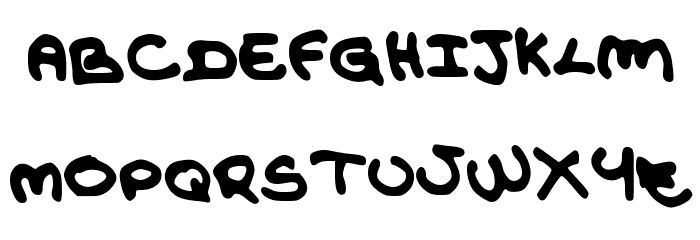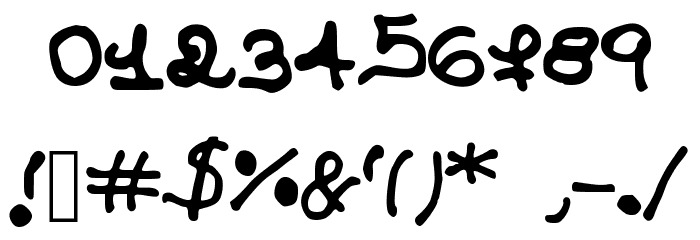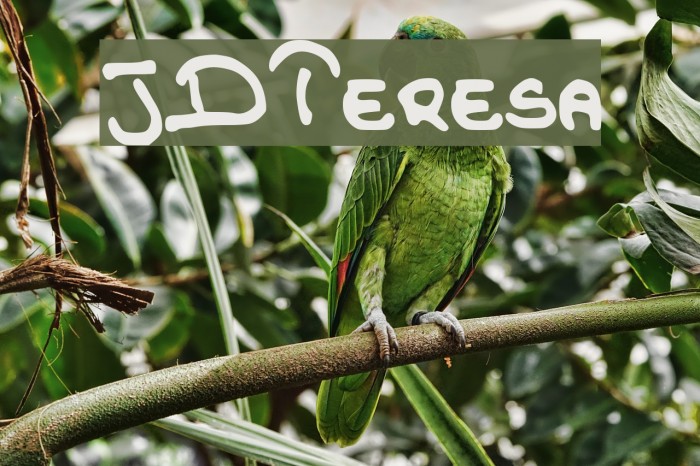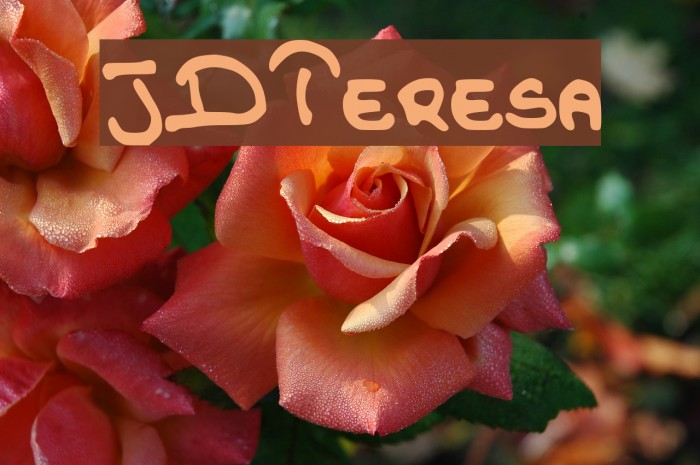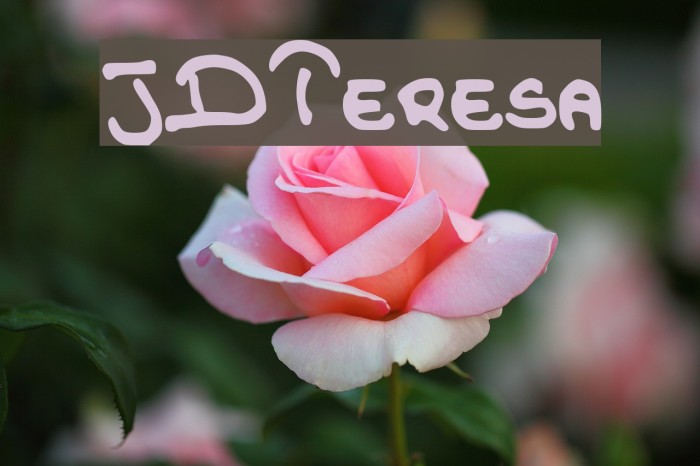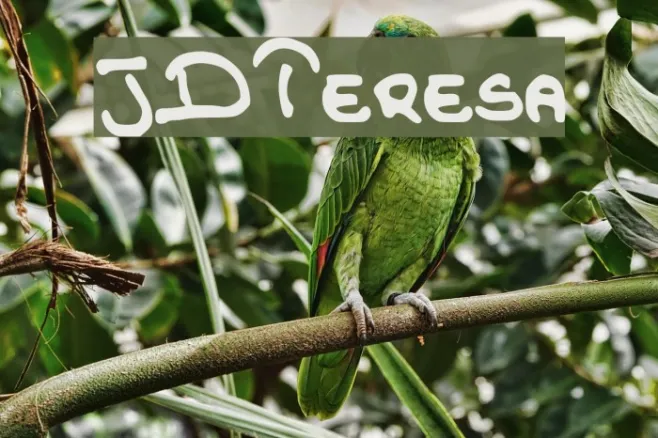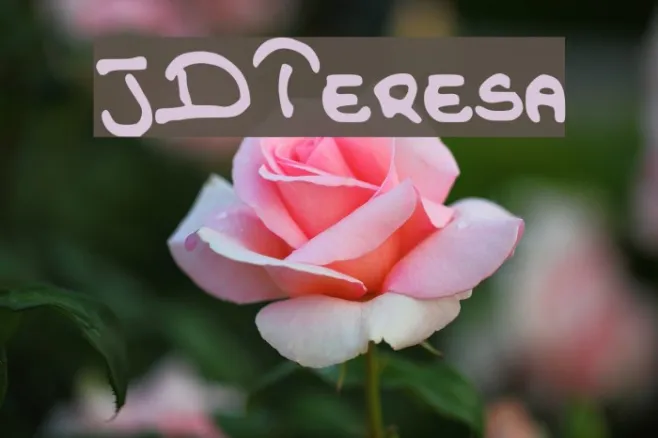
JDTeresa Font
This font features a playful and bold design with a handwritten style. The characters are rounded and slightly irregular, giving a casual and friendly appearance. The uppercase and lowercase letters maintain a consistent style, with a slight tilt and varying stroke thickness that adds to the informal look. Numbers and special characters follow the same design principles, ensuring a cohesive appearance across all elements. The font's unique style makes it stand out, making it suitable for creative and informal projects.
A playful, bold handwritten font with rounded, irregular characters.
- Proposed Projects: Ideal for children's books, greeting cards, playful branding, and casual invitations.
- Overall Style: Casual
- Use Case: Headlines, Logos, Informal Text